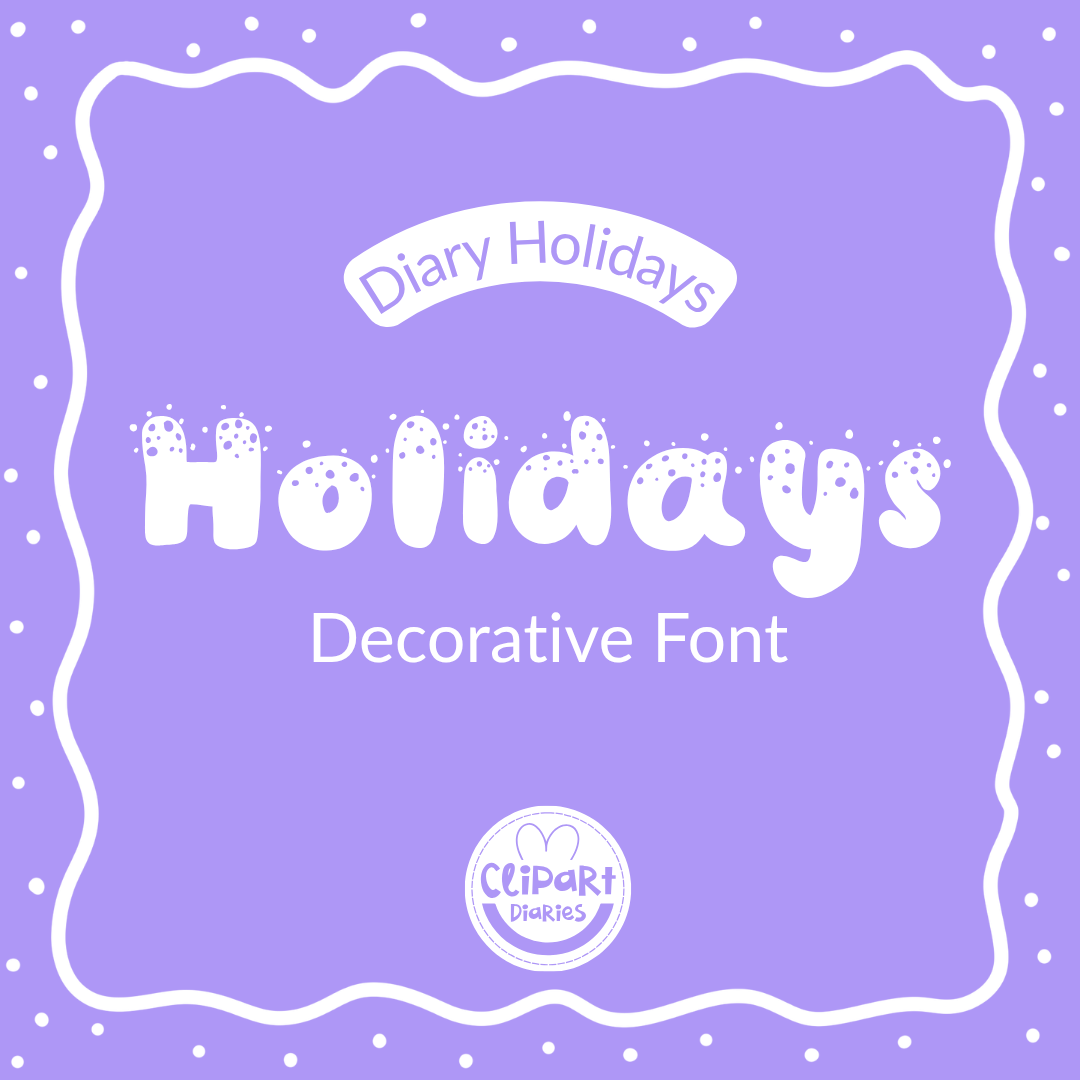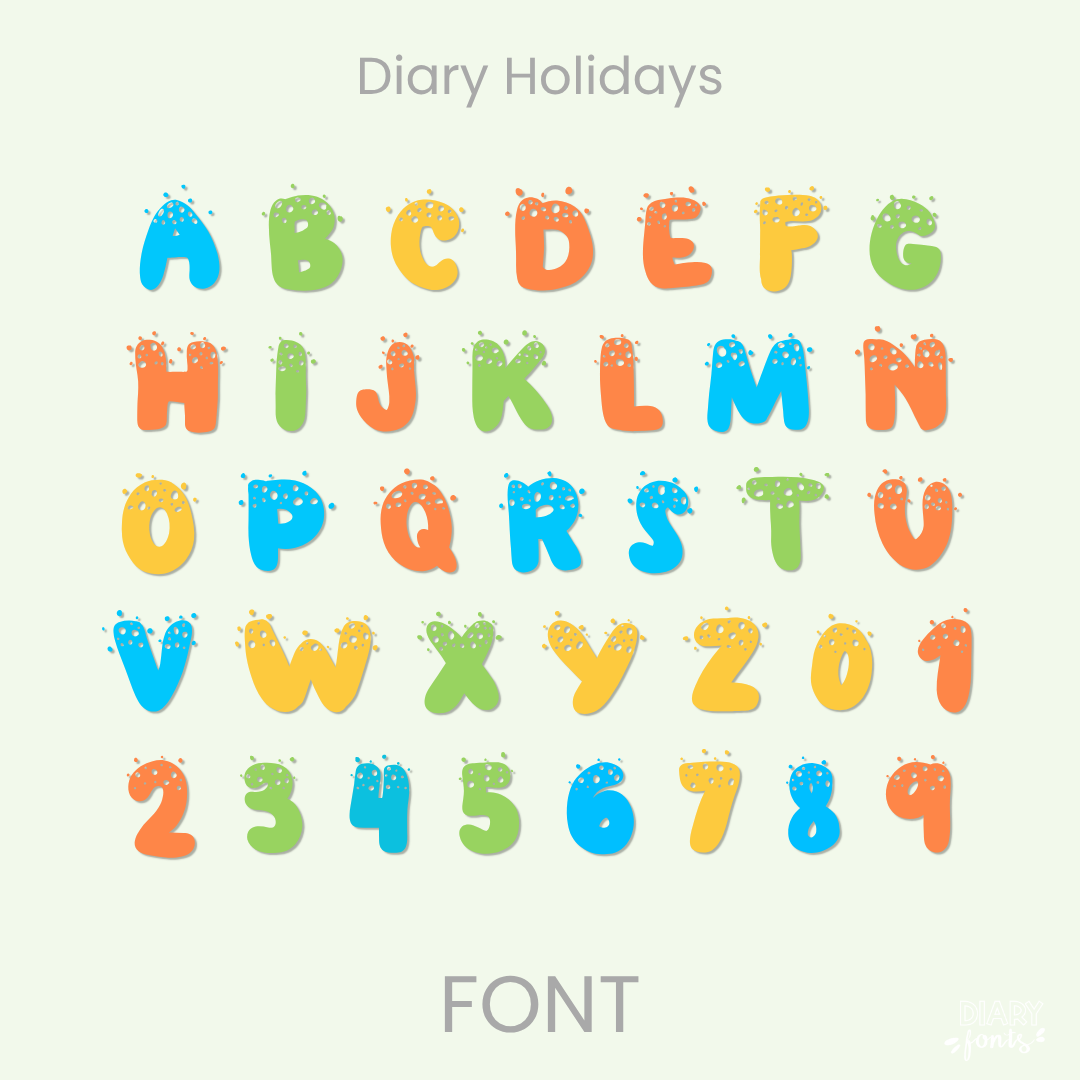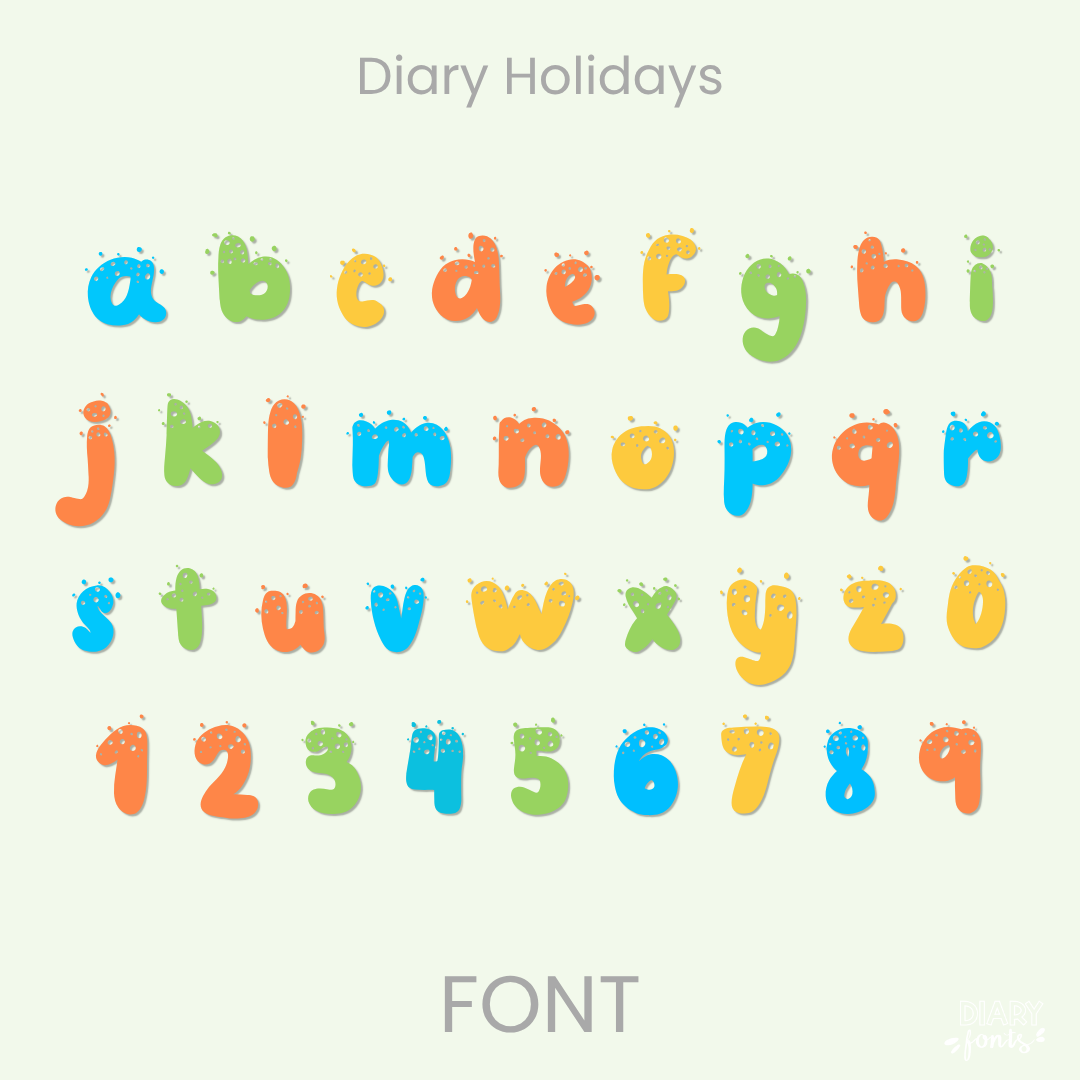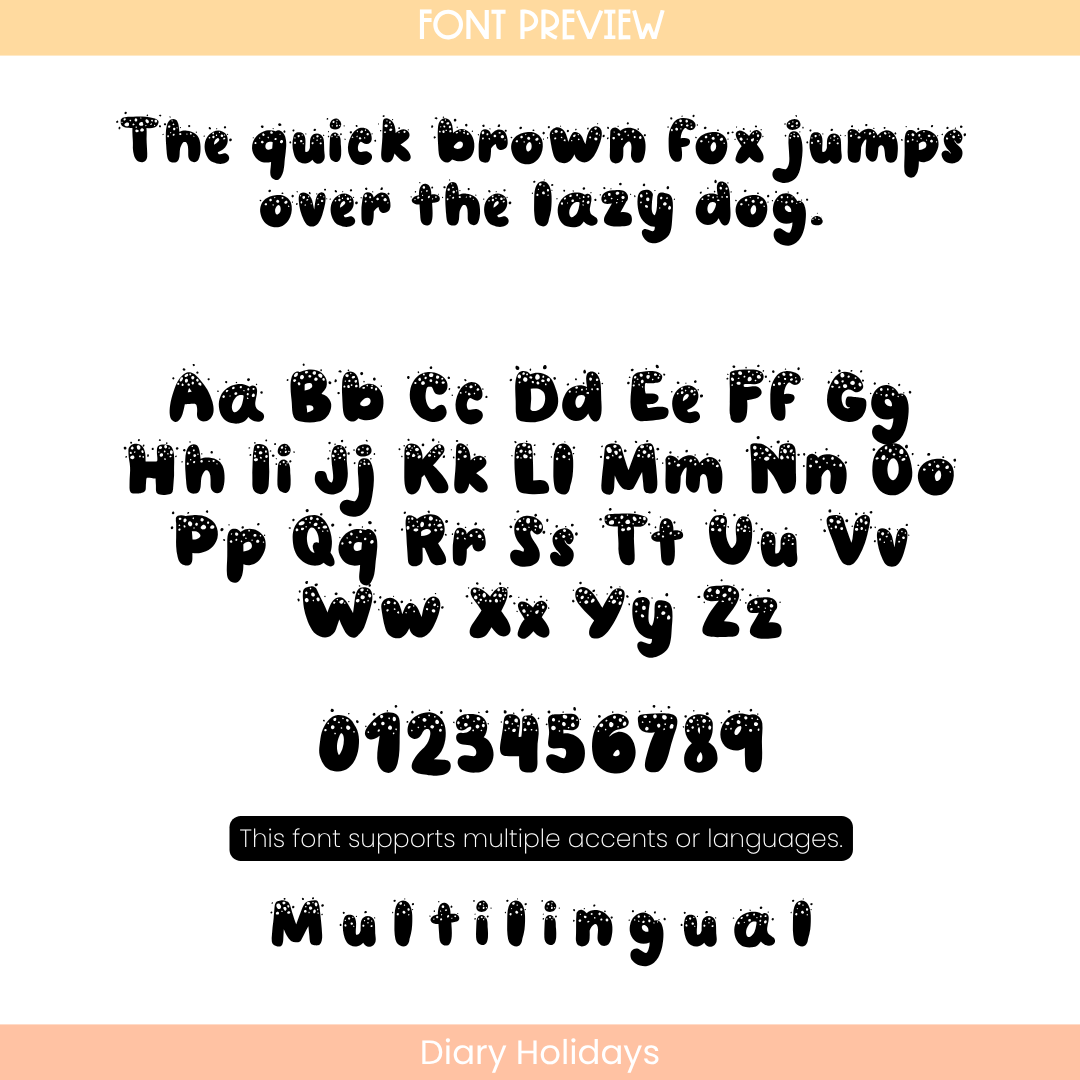
If you want to give your projects a festive and playful look, Diary Holidays is an excellent choice. Built on a neat, upright print structure, this typeface adds a charming twist with a distinct lined pattern running right through the middle of the letterforms. It maintains clear spacing and a balanced visual weight, ensuring your text remains exceptionally crisp and easy for students to read.